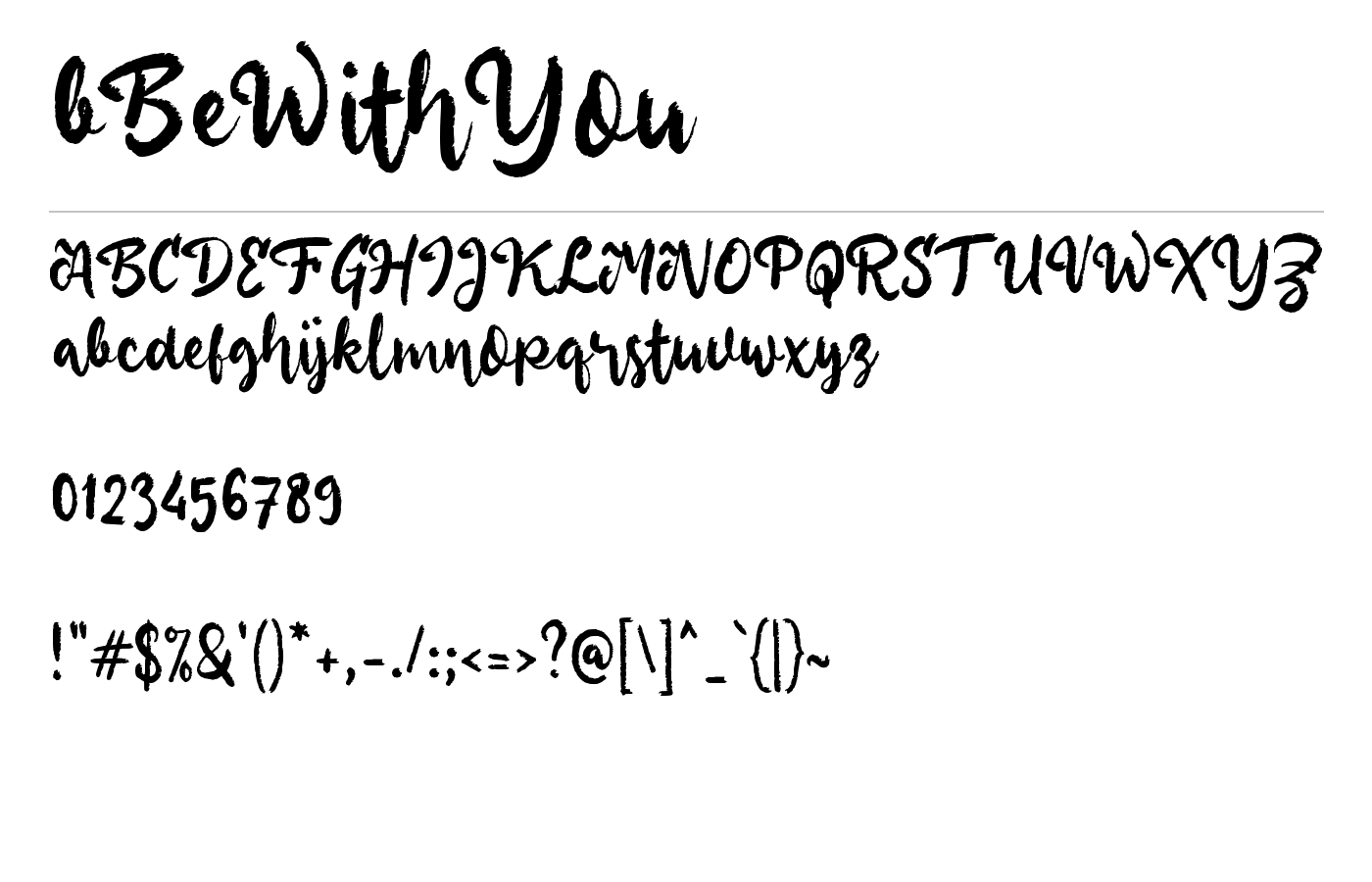
bBeWithYou is a lively brush script font characterized by its textured, hand-painted strokes and high contrast between thick and thin lines. With its casual, artistic feel and slightly irregular letterforms, it brings a warm, personal touch ideal for creative, friendly designs such as invitations, branding, and social media graphics. This font shines in expressive headlines and logos where a dynamic, handcrafted style is desired.
bBeWithYou Font
About bBeWithYou Font